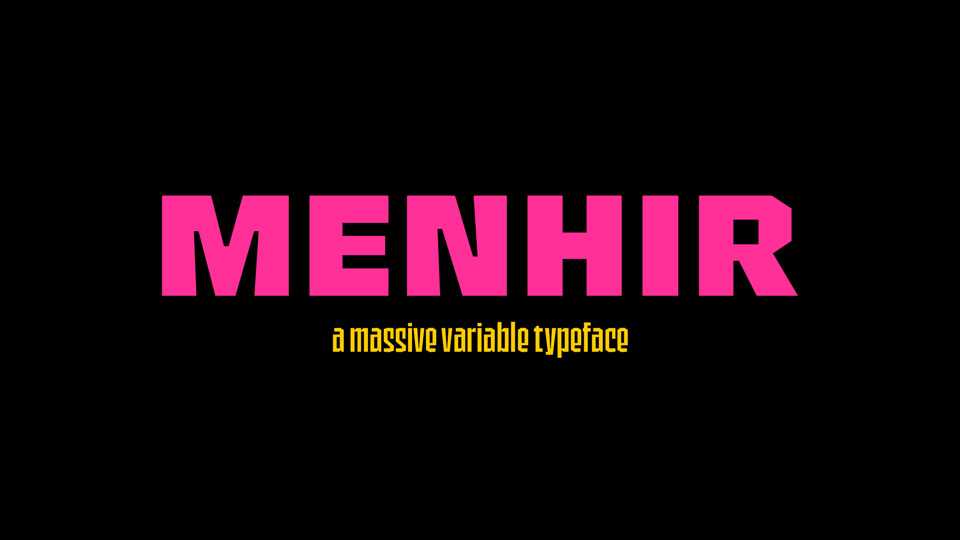
Download Menhir font, a massive typeface with a feeling of being carved into a very dense and rough matter. Menhir font has no curve in the design of the letters like in a cut stone sculpted with a primitive chisel.